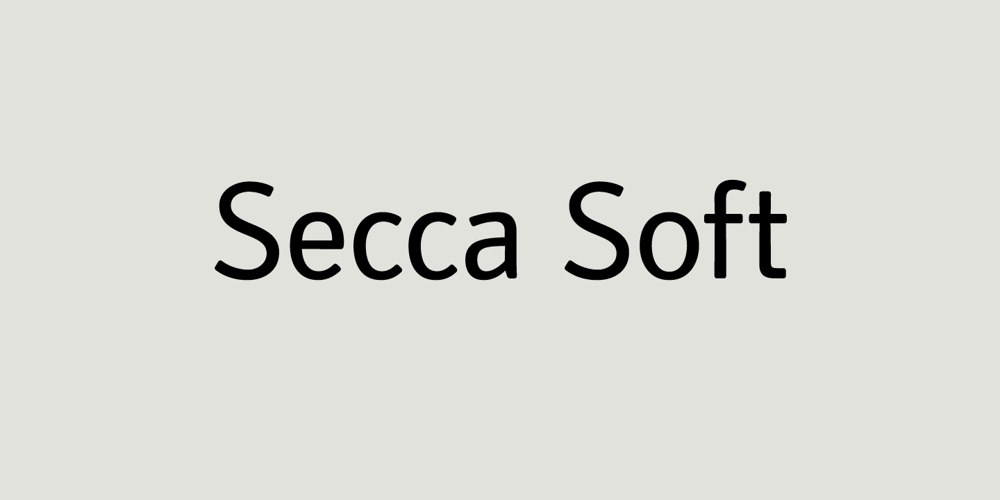
Secca Soft Font Family was designed by Andreas Seidel and published by astype. Secca Soft contains 18 styles and family package options. Secca Soft is the rounded sister of Secca font family. With its workhorse qualities, Secca Soft is perfectly suited for a wide range of applications – especially where legibility and economy are important factors. It comes with a wide language support and many typographic features and extras. The family comes in nine weights from Thin to Ultra Black – each with italics, small caps and italic small caps. While the weights from Light to Bold perform well in text sizes, the more extreme styles give extra freedom for Headlines & Signage. For setting tables and charts, Secca Soft offers tabular figures, fractions, currency signs and mathematic operators which share the same fixed width throughout the entire range of weights. This special feature is called “weight duplexing” and is a time saver for designers of annual reports and other figure-heavy texts.